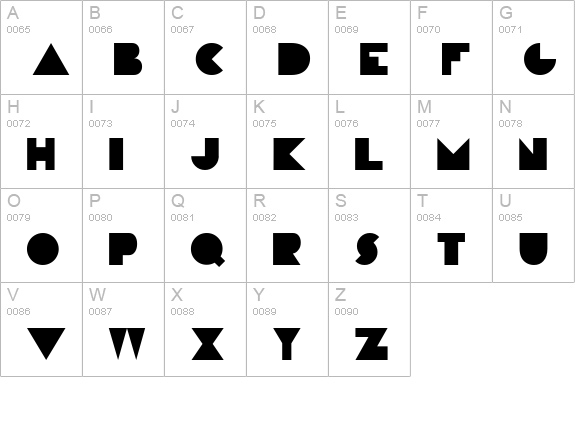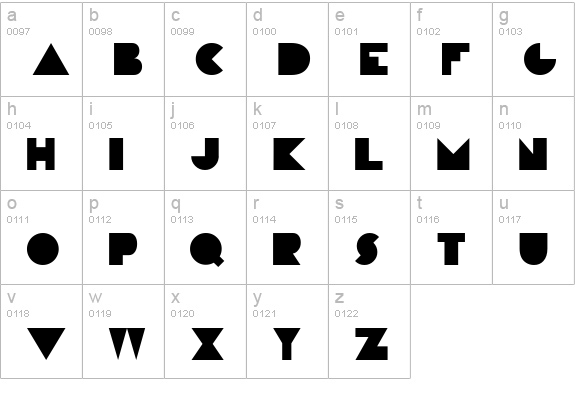
Constructivist Solid Font Details
Constructivist Solid font is a bold and eye-catching typeface inspired by the Constructivist art movement of the early 20th century. Its geometric shapes and strong lines give it a modern and avant-garde feel, making it perfect for creating impactful designs. The font exudes a sense of strength and confidence, making it ideal for headlines, posters, and branding projects. What sets Constructivist Solid font apart is its unique blend of tradition and innovation, paying homage to the artistic principles of the Constructivist movement while also incorporating a contemporary twist. Its solid and sturdy appearance conveys a sense of stability and reliability, making it a versatile choice for a wide range of design applications. One of the best features of Constructivist Solid font is that it is available for free download at FontsMarket.com. This means that designers and creatives can easily access this striking typeface without any cost, making it a valuable addition to their font library. Whether you're working on a personal project or a client commission, Constructivist Solid font is sure to make a bold statement and leave a lasting impression.